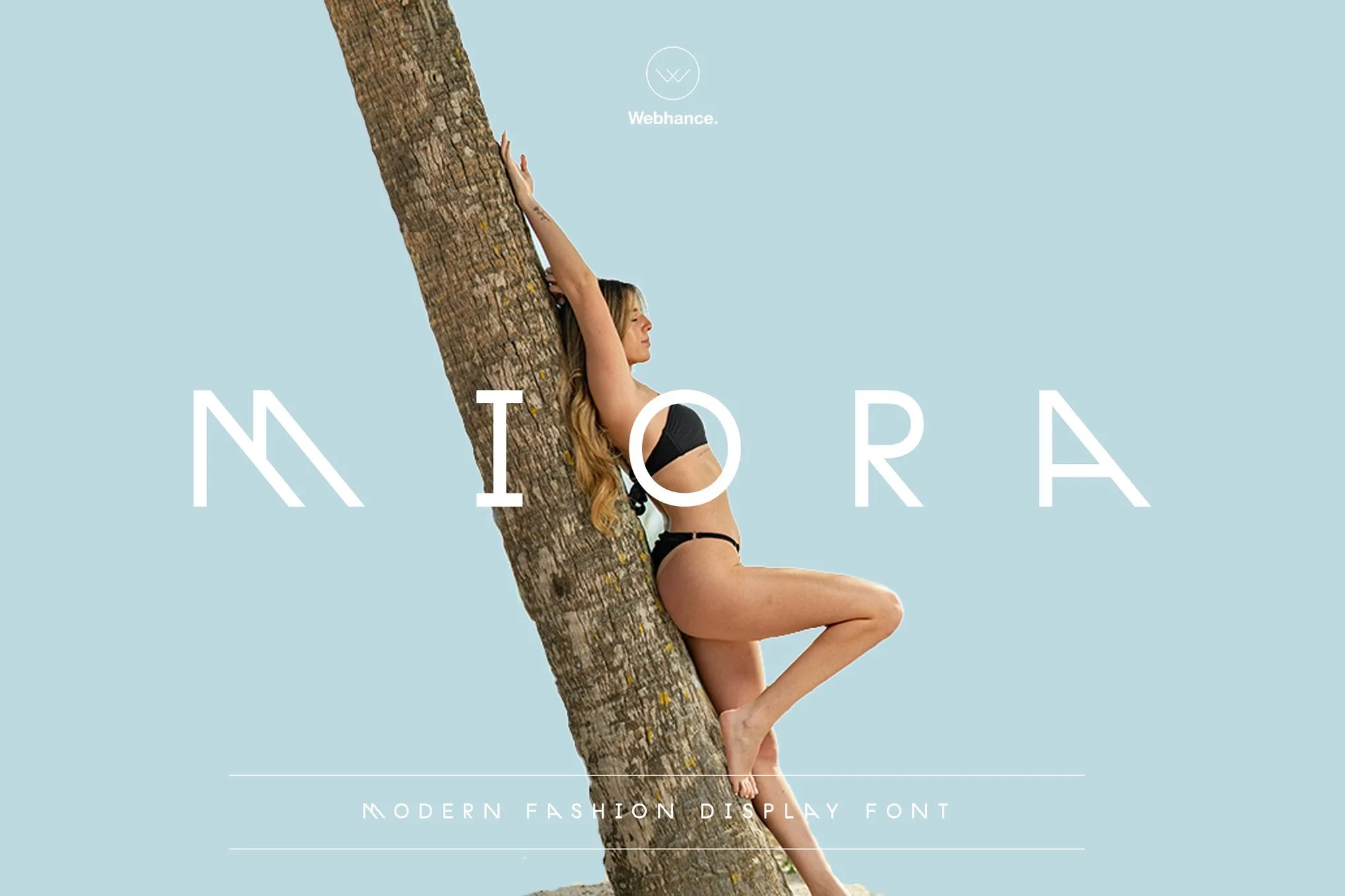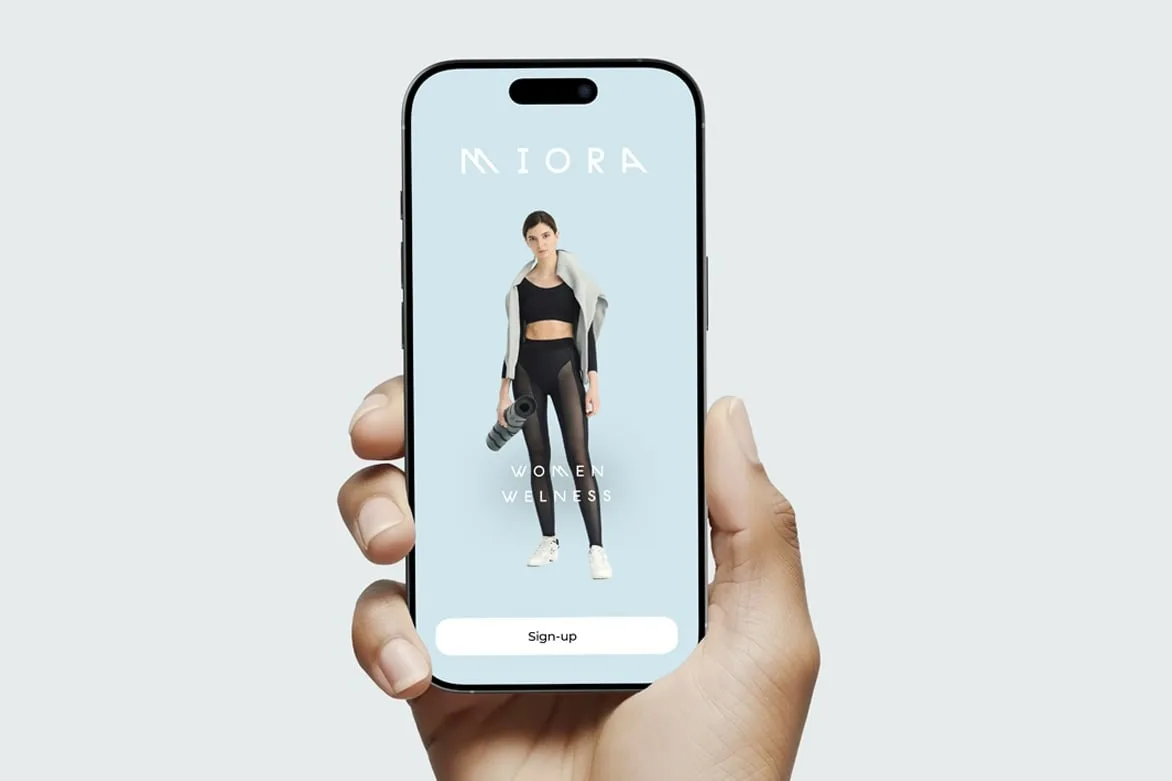
Miora
Miora is a modern fashion display typeface designed for visual clarity, minimal elegance, and expressive branding. Inspired by high-end beauty campaigns and wellness culture, Miora balances smooth curves with sharp cuts, creating a sophisticated and contemporary typographic voice.
This versatile typeface comes in 6 weights with matching italics — totaling 12 fonts — and supports 100+ languages, making it perfect for packaging, mobile apps, editorials, and modern design systems. Whether you’re building luxury branding or digital experiences, Miora delivers precision, style, and readability.